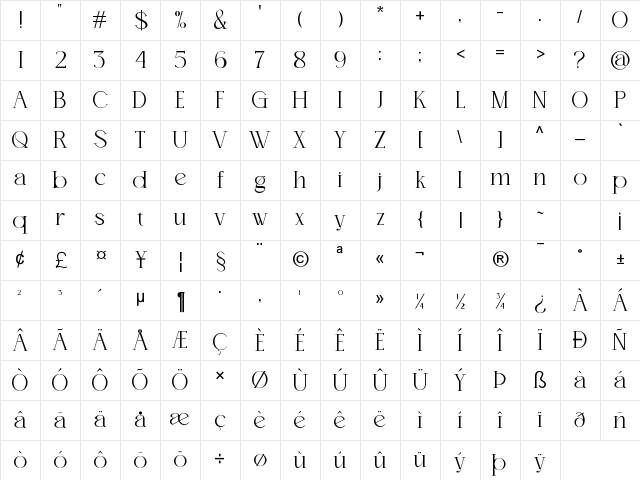
Aotten is a composed and adaptable typeface that performs quietly and consistently across a wide range of design contexts.
Pro Tip: Use Aotten in both headline and body roles to test its range before committing to a single application.